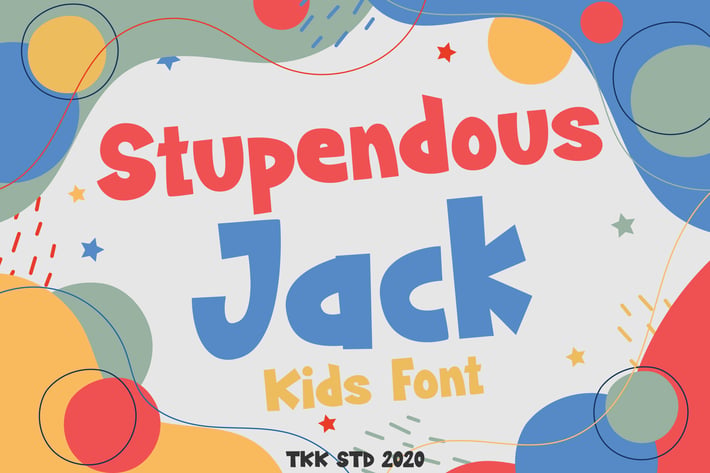
Stupendous Jack - Kids Font
Stupendous Jack is a bubbly kids font designed to spark imagination and delight in every letter. Featuring soft curves, low contrast, and a charmingly uneven baseline, it gives off a joyful, lighthearted energy—just like a child’s playful handwriting. The overall structure is rounded and thick, boosting readability and friendliness for young readers. Whether it's for a cartoon intro, preschool logo, or children's apparel design, Stupendous Jack brings an energetic and expressive tone.
Built with a focus on visual fun and innocence, this font is especially suited for brands that cater to kids and early education—from apps and games to birthday party invites and daycare walls.
Kids don’t just read—they feel your message. Stupendous Jack is crafted to bring joy, imagination, and approachability to every visual it touches. Perfect for toy branding, YouTube thumbnails, animated videos, mobile apps, and storybook covers. Its expressive bounce makes learning materials and child-focused marketing feel warm and inviting—while still standing out in a digital feed or classroom print.
- Playful Energy: Bouncy baseline and rounded edges make it visually engaging and joyful
- Kid-Safe Styling: Clear, legible, and friendly for young readers and parents
- Versatile Uses: Perfect for storybooks, games, learning kits, packaging, and classroom visuals
- Emotion-Driven Design: Helps create emotional engagement in kids’ apps and learning materials
- Curated for Creatives: Easy to style across digital and print platforms